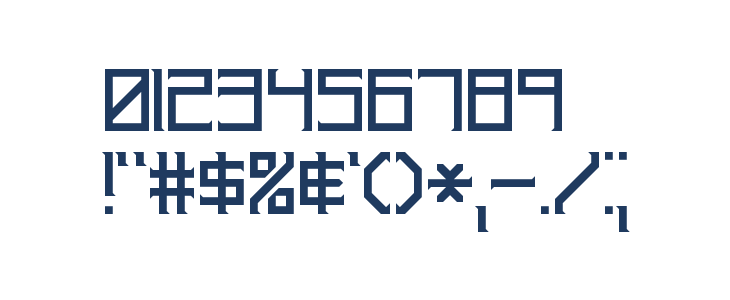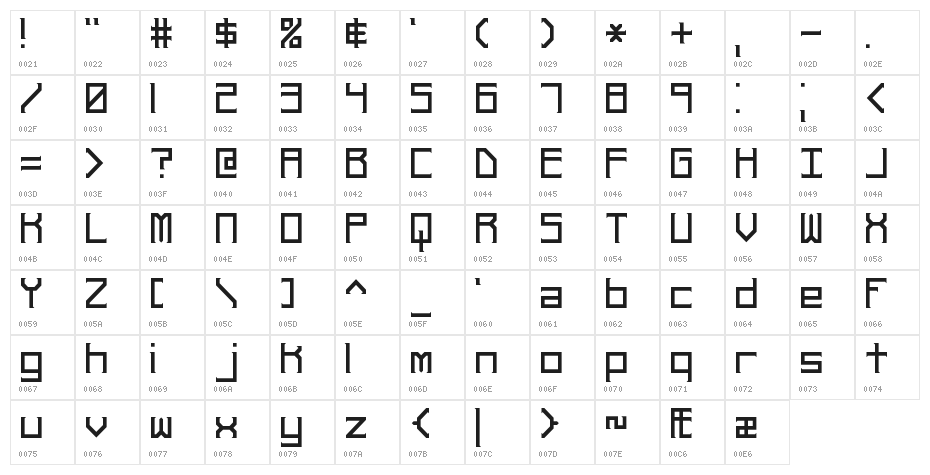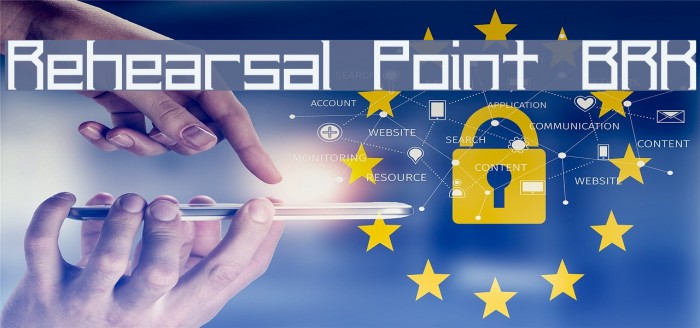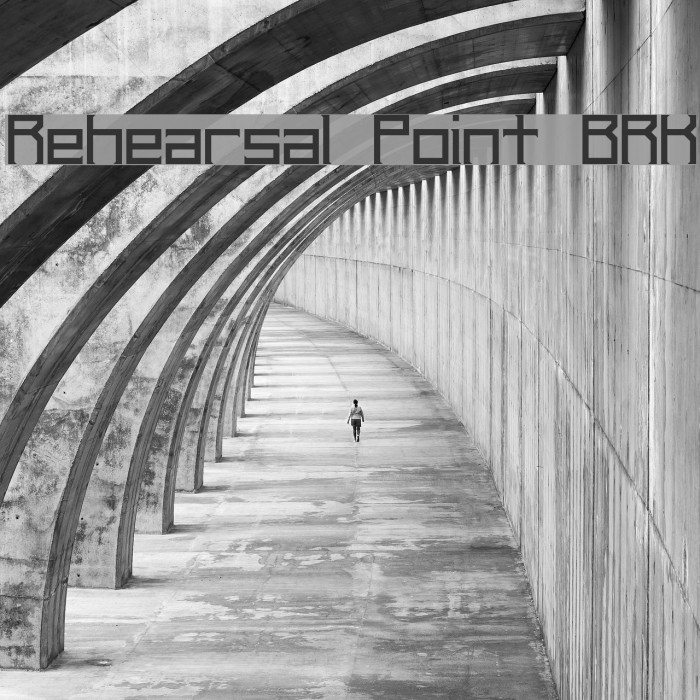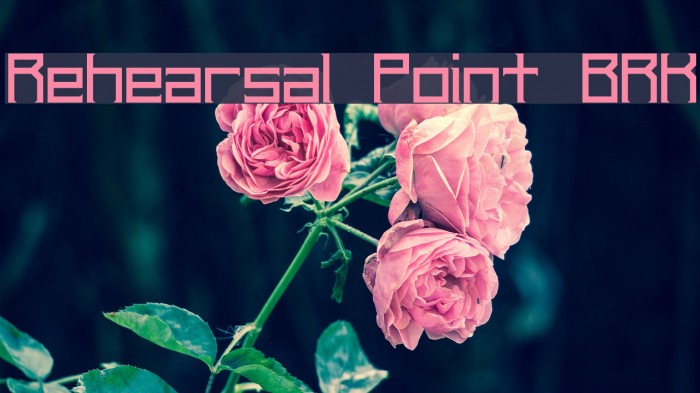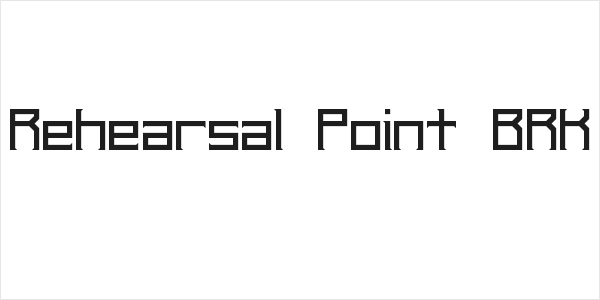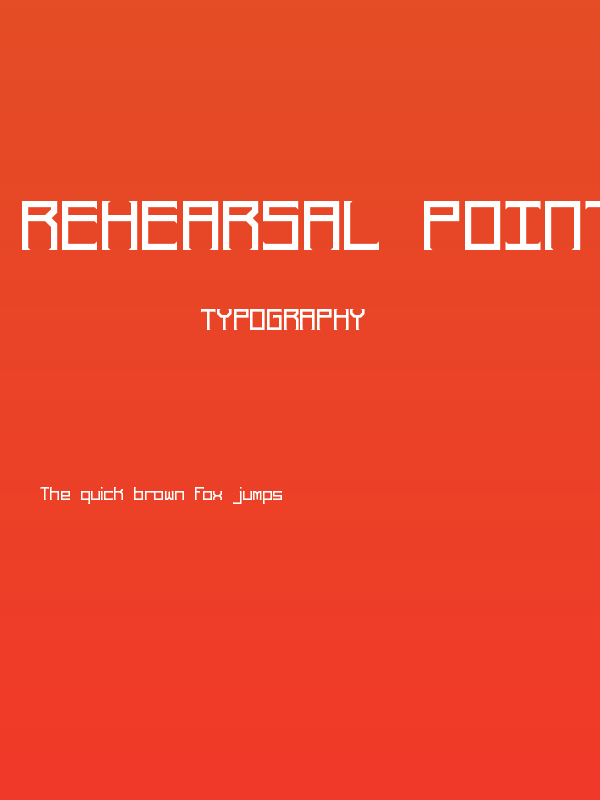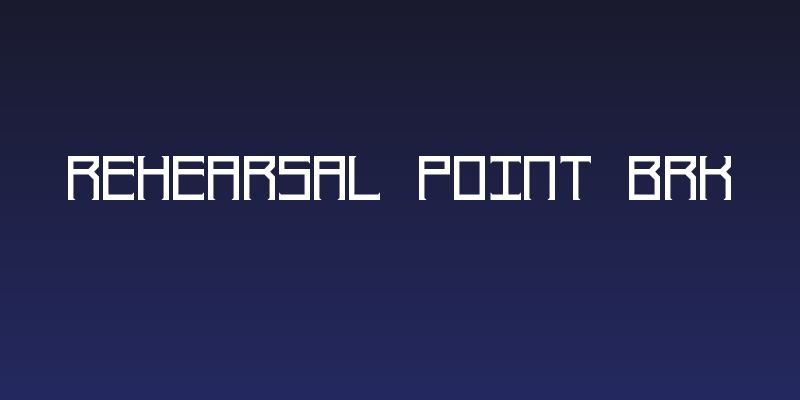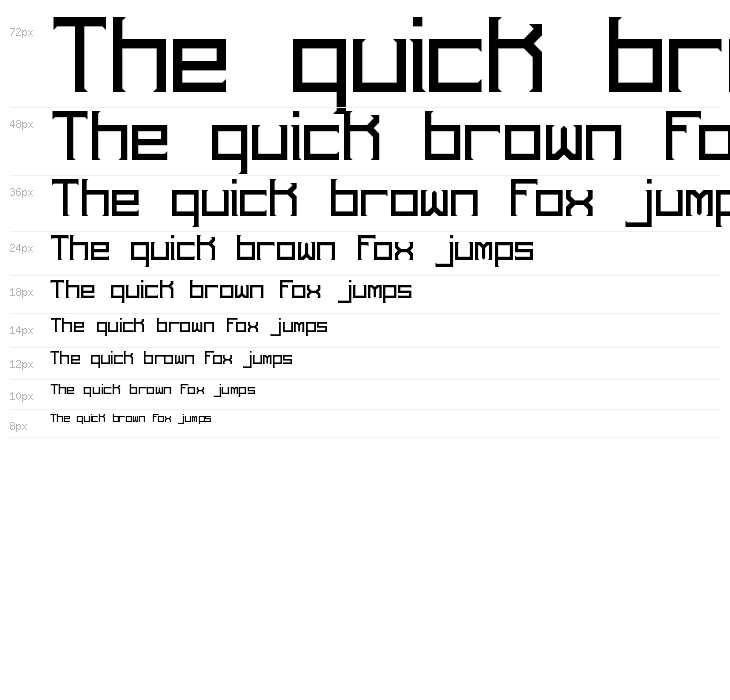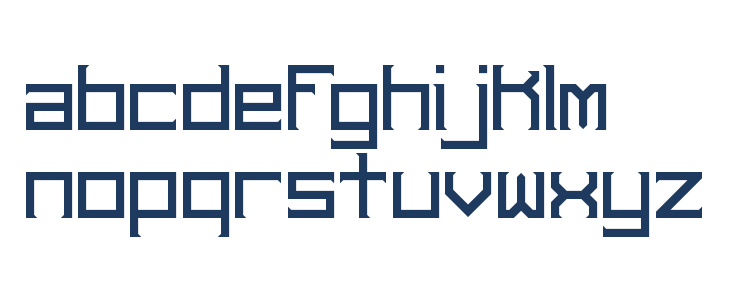
Rehearsal Point BRK Font
Rehearsal Point BRK Description
This font features a unique geometric design with sharp angles and a futuristic aesthetic. The characters are constructed with straight lines and angular cuts, giving it a modern and edgy appearance. The uppercase and lowercase letters maintain a consistent style, with a uniform height and width that creates a cohesive look. Numbers and special characters follow the same design principles, ensuring a harmonious overall appearance. The font's bold and structured form makes it stand out, while its clean lines and lack of curves contribute to its distinct, contemporary feel.